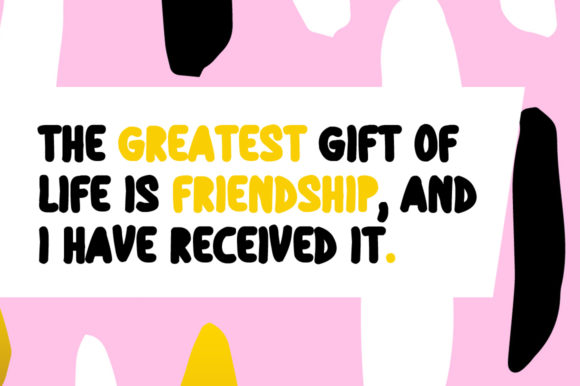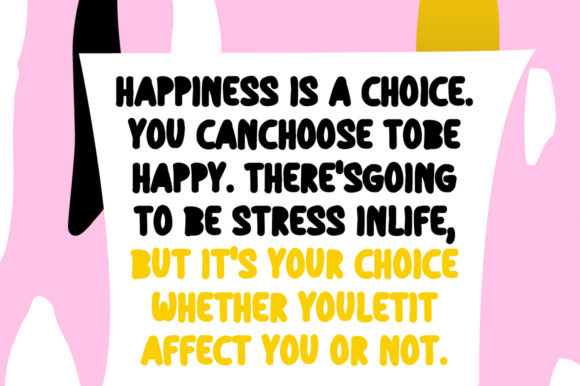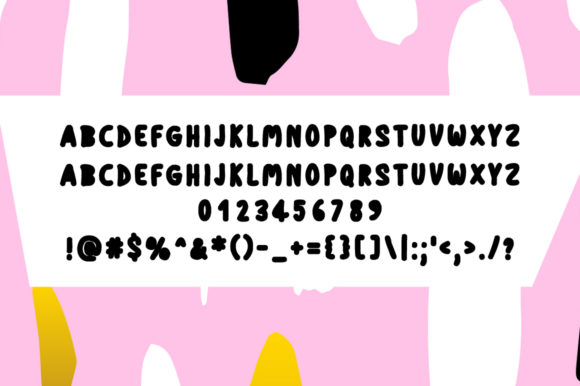
Discover the Sweet Taste of Design with Bornite Font
Have you ever stared at a blank page, waiting for that perfect spark of creativity to strike? It’s a feeling every designer knows all too well. But what if I told you that the solution lies in a font that’s as sweet as it is stylish? Welcome to the world of Bornite Font, a delightful display font that’s sure to turn your design ideas into mouth-watering masterpieces.
With its light, airy feel and playful touch, Bornite Font is the perfect companion for any design project. Whether you’re crafting a whimsical logo, a charming social media graphic, or a stunning web page, this font is sure to add a touch of magic to your creations. And the best part? Bornite Font is a valuable tool for designers, offering a unique and versatile look that’s sure to set your work apart from the rest.
Bornite Font Key Features
- Font Family: Bornite Font is a sans-serif font family designed for digital use.
- Character Set: Supports a wide range of languages, including Latin, Cyrillic, Greek, and many more.
- Size: Bornite Font comes in 5 different weights: Light, Regular, Medium, Bold, and Black, each with its own unique characteristics.
- Resolution: Optimized for high-resolution displays, making it suitable for use in digital media, including web, mobile, and print.
- Unique Characteristics: Bornite Font features a unique blend of modern and geometric elements, making it highly legible and visually appealing.
Review of Bornite Font
As a designer, I was excited to try out the Bornite Font. Here’s my honest review:
- The Bornite Font has a unique and modern aesthetic that makes it perfect for creative and innovative projects.
- The font is highly customizable, allowing users to adjust the size, color, and spacing to fit their specific needs.
- The font is also very legible, even at smaller sizes, making it a great choice for body text and captions.
- The font may not be suitable for traditional or formal projects, as its modern look may come across as too trendy or attention-seeking.
- The font may not be compatible with older versions of certain software or operating systems, which could lead to display issues.
Overall, I think the Bornite Font is a great addition to any designer’s toolkit. Its unique look and high level of customizability make it perfect for creative projects, but it may not be the best choice for more traditional or formal work. With a little caution and consideration, however, I think this font has the potential to be a real game-changer.
Tips for Getting the Most Out of Bornite Font
Use the Bornite font for headings and titles to add a touch of elegance and sophistication to your designs. Experiment with different font sizes and styles to create a visually appealing hierarchy. Pair the Bornite font with other fonts to create a unique and interesting typography.
The Bornite font is ideal for designs that require a luxurious and sophisticated feel. Use it for wedding invitations, luxury product packaging, or high-end marketing materials. The font’s elegant and refined style makes it perfect for designs that need to convey a sense of exclusivity and prestige.
Alternatives to Bornite Font
Bornite Font is a unique, modern sans-serif font known for its geometric shapes and elegant feel. Here are some alternatives for designers:
Montserrat Font is a geometric sans-serif font designed for urban environments. It’s ideal for use in digital interfaces, signage, and branding materials where a clean and modern look is required. Compared to Bornite Font, Montserrat has a more angular and industrial feel, making it suitable for a wide range of applications, including news headlines, advertising, and packaging.
2. Inter Font
Inter Font is a modern sans-serif font designed for digital interfaces, including web and mobile applications. It’s known for its clean lines, open shapes, and high x-height, making it suitable for use in body text and headings. Compared to Bornite Font, Inter has a more streamlined and neutral feel, making it a good choice for applications where a clean and minimalistic design is required.